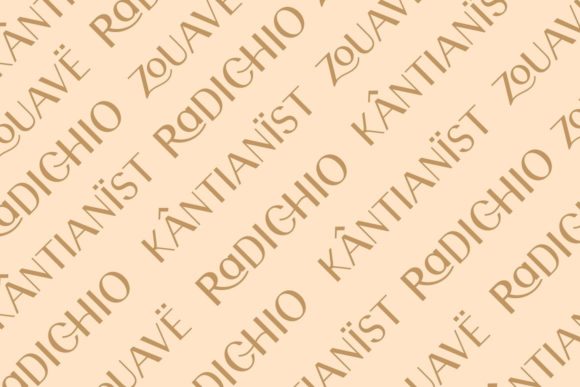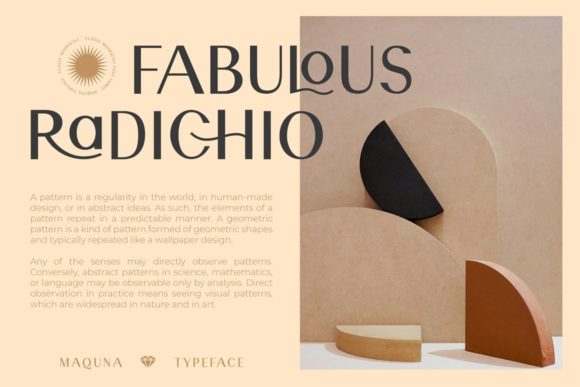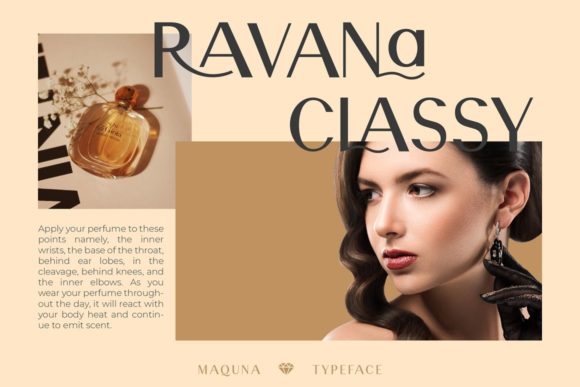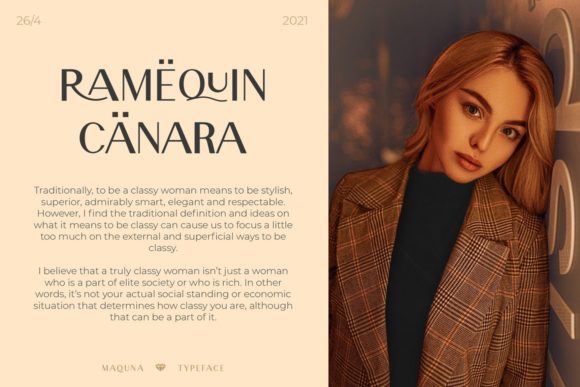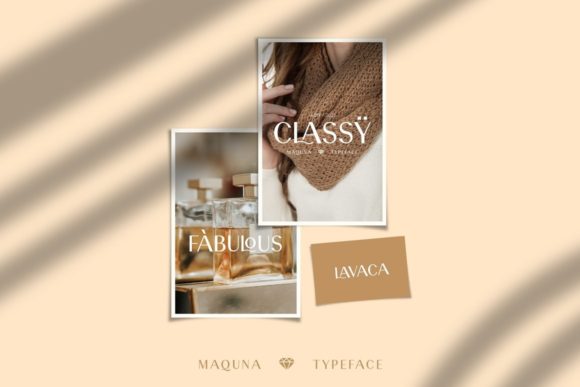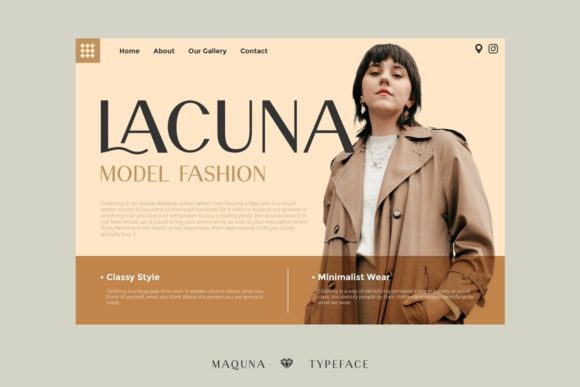
Introduction to Maquna Font
Maquna is an elegant and distinct sans serif font.
This font is PUA encoded which means you can access all of the glyphs and swashes with ease Fall in love with its incredibly versatile style and use it to create spectacular designs.